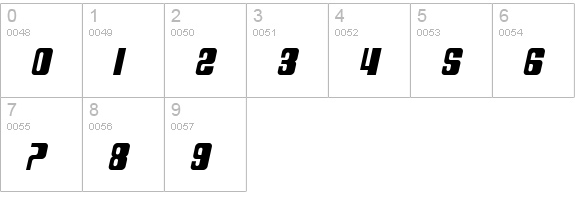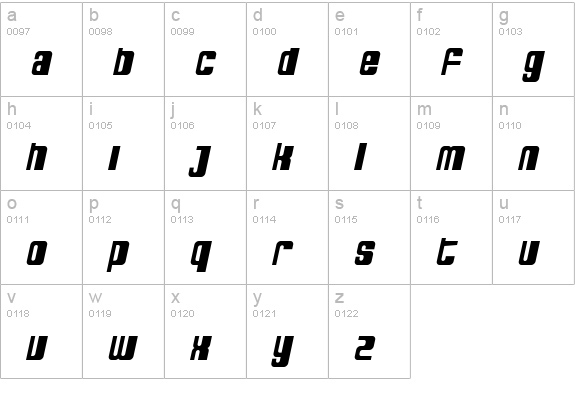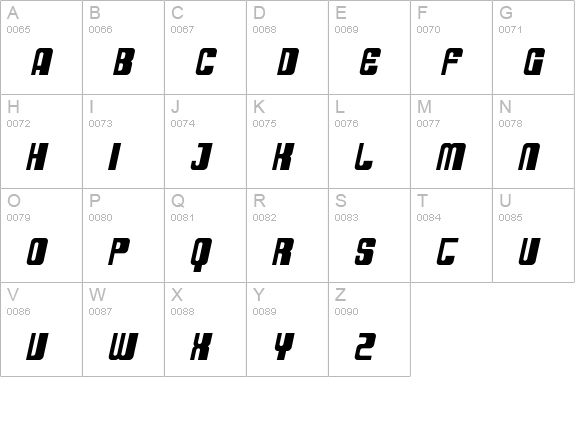
SF DecoTechno Bold Oblique Font Details
SF DecoTechno Bold Oblique is a strong, high-contrast, italic variant in the SF typeface family \xE2\x80\x94 well suited to headlines, attention-grabbing titles, and strong calls-to-action.
SF DecoTechno Bold Oblique is a stunning and eye-catching font that effortlessly combines the elegance of Art Deco with the sleekness of modern technology. Its bold and oblique design exudes confidence and sophistication, making it perfect for any project that requires a touch of boldness and modernity. The unique blend of geometric shapes and smooth curves in SF DecoTechno Bold Oblique creates a harmonious balance between the past and the present. Its strong presence on the page commands attention and adds a sense of innovation to any design. This font is freely available to download at FontsMarket.com, allowing designers and enthusiasts alike to experience the power and versatility of SF DecoTechno Bold Oblique without any limitations. With its freely available status, you can bring this font into your projects without worrying about any additional costs. Whether you're designing a sleek and modern logo, a futuristic poster, or a cutting-edge website, SF DecoTechno Bold Oblique will undoubtedly elevate your design to new heights. Its bold and oblique letterforms add depth and dimension, while its clean lines and sharp angles give it a contemporary edge. Don't miss out on the opportunity to harness the power of SF DecoTechno Bold Oblique. Download this font for free at FontsMarket.com and unleash your creativity like never before.